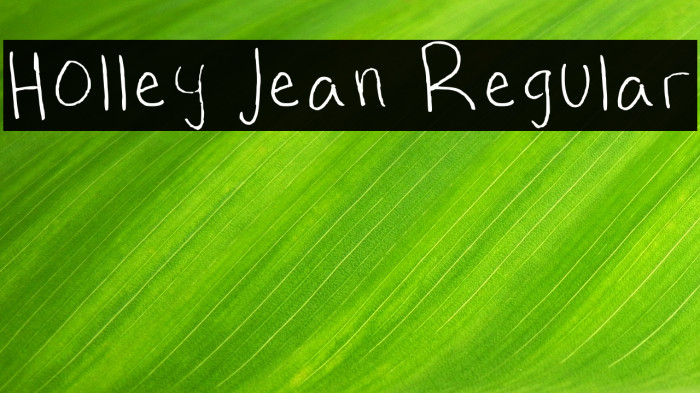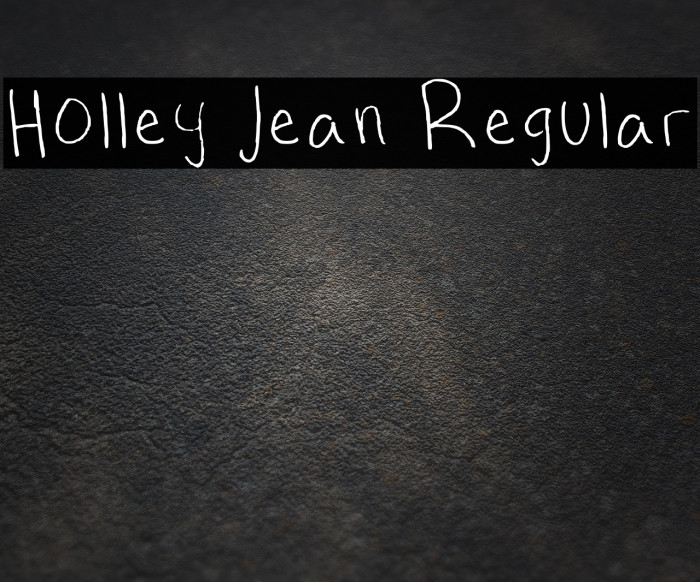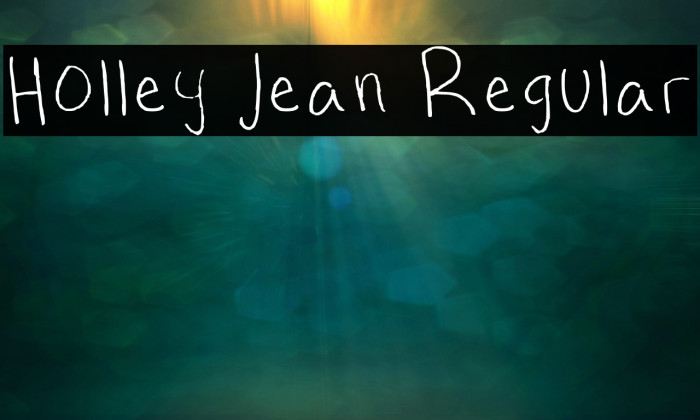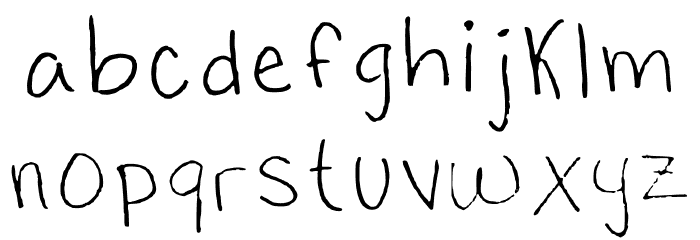
Holley Jean Regular Font
Holley Jean Regular Description
This font exhibits a casual, handwritten style that conveys a sense of informality and approachability. The characters are slightly irregular, with varying stroke widths that add a personal touch. The uppercase letters are tall and narrow, while the lowercase letters maintain a consistent flow, enhancing readability. The font's playful nature is evident in its quirky letterforms, such as the unique treatment of the 'e' and 'g'. The spacing between characters is relatively normal, ensuring clarity and legibility. This font is ideal for projects that require a personal or informal tone, such as greeting cards, personal blogs, or creative branding.
A casual, handwritten font with a playful and approachable style from Uncategorized fonts.
- Proposed Projects: Greeting cards, personal blogs, creative branding, informal invitations.
- Overall Style: Casual, Playful
- Use Case: Greeting cards, Personal projects, Informal branding